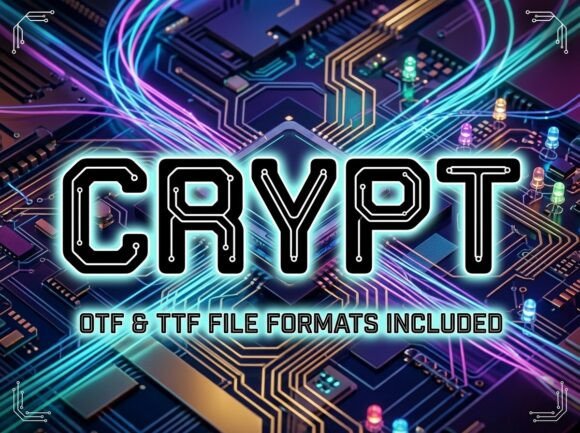
Introducing Crypt Font: The Ultimate Display Typeface for Futuristic Branding
In the rapidly evolving world of digital design, a brand’s visual identity is crucial for making a lasting impression. For designers and crafters looking to create a bold, futuristic aesthetic, Crypt Font is the perfect solution. This precision display typeface is designed to capture the essence of a “cybernetic-and-complex” soul, making it ideal for independent e-sports team identities, boutique cybersecurity logos, futuristic gaming interfaces, and high-impact social media headers.
The Design Philosophy Behind Crypt Font
Crypt Font boasts angular, geometric letterforms that are uniquely characterized by rhythmic “motherboard” pathways and terminal nodes. This distinctive design bridges the gap between high-end hardware engineering and modern sci-fi branding, giving your brand a cutting-edge look that’s both futuristic and sophisticated. The font’s heavy structural weight and digital personality make it perfect for creating visually striking brand identities that demand attention.
Key Features of Crypt Font
- Angular, geometric letterforms: Crypt Font’s letterforms are designed with a futuristic aesthetic in mind, featuring sharp angles and geometric shapes that evoke a sense of high-tech sophistication.
- Rhythmic “motherboard” pathways: The font’s unique pathways and terminal nodes give it a distinctive, high-tech look that’s reminiscent of circuit boards and computer hardware.
- Heavy structural weight: Crypt Font’s bold, substantial design makes it perfect for creating eye-catching brand identities that stand out in a crowded digital landscape.
- Digital personality: The font’s digital personality is evident in its clean lines, geometric shapes, and futuristic aesthetic, making it ideal for brands that want to convey a sense of innovation and forward-thinking.
Use Cases for Crypt Font
Crypt Font is a versatile display typeface that can be used in a variety of contexts, including:
- Independent e-sports team identities: Create a bold, futuristic brand identity for your e-sports team with Crypt Font’s unique, high-tech aesthetic.
- Boutique cybersecurity logos: Convey a sense of sophistication and expertise with Crypt Font’s geometric, high-tech design.
- Futuristic gaming interfaces: Use Crypt Font to create visually striking gaming interfaces that transport players to a futuristic world of high-tech excitement.
- High-impact social media headers: Make a lasting impression on social media with Crypt Font’s bold, attention-grabbing design.
Why Choose Crypt Font?
In a digital landscape where visual identity is crucial, Crypt Font offers a unique combination of style, sophistication, and futurism. By choosing Crypt Font, you’ll be able to:
- Create a bold, memorable brand identity: Crypt Font’s distinctive design makes it perfect for creating a lasting impression on your target audience.
- Convey a sense of innovation and forward-thinking: The font’s futuristic aesthetic and digital personality make it ideal for brands that want to convey a sense of innovation and forward-thinking.
- Stand out in a crowded digital landscape: Crypt Font’s heavy structural weight and attention-grabbing design make it perfect for cutting through the noise and grabbing attention.
Crypt Font is the ultimate display typeface for designers and crafters looking to create a bold, futuristic aesthetic. With its unique combination of angular, geometric letterforms, rhythmic “motherboard” pathways, and terminal nodes, Crypt Font is perfect for independent e-sports team identities, boutique cybersecurity logos, futuristic gaming interfaces, and high-impact social media headers. By choosing Crypt Font, you’ll be able to create a lasting impression on your target audience and establish a strong, memorable brand identity that demands attention.